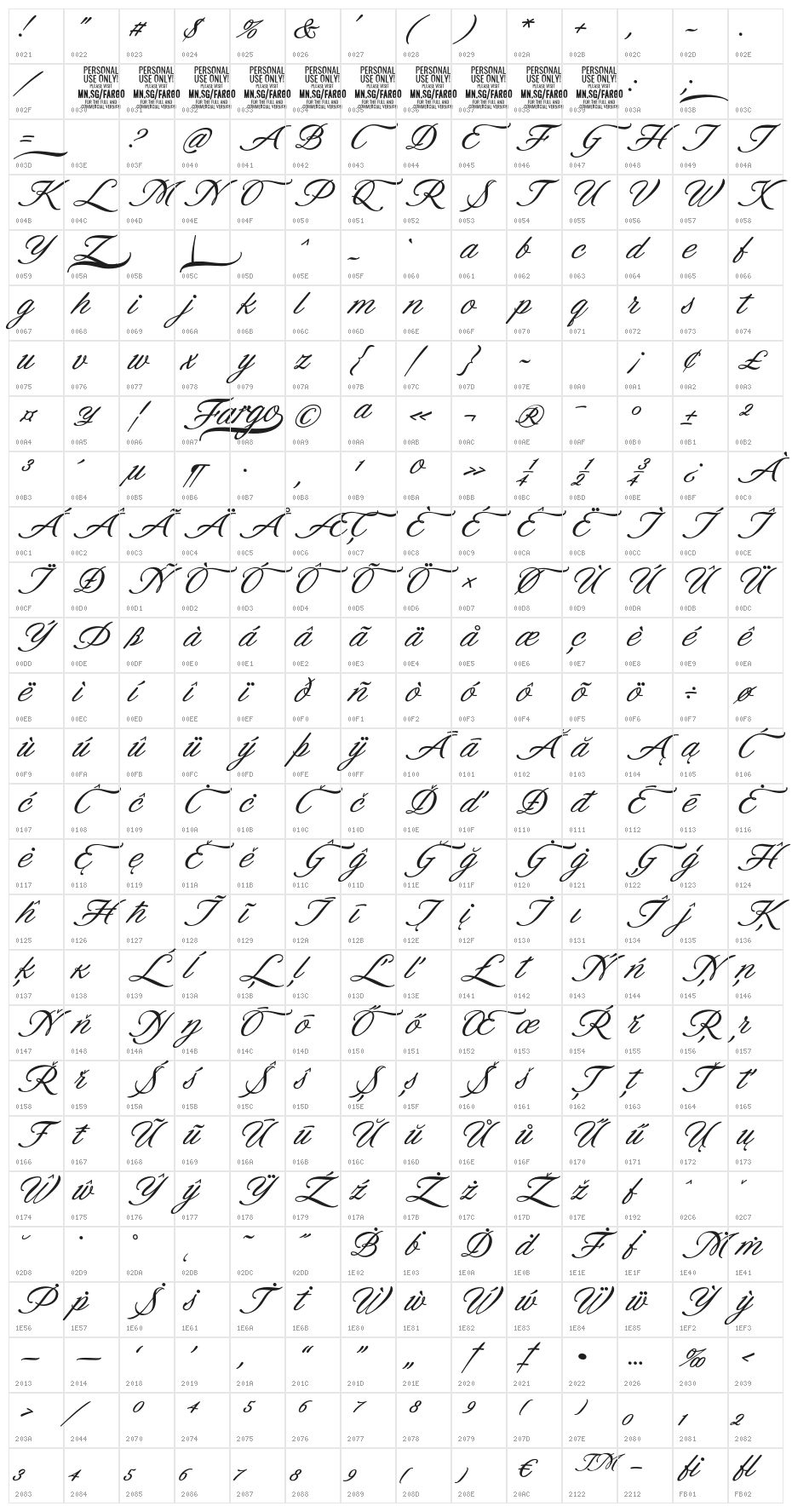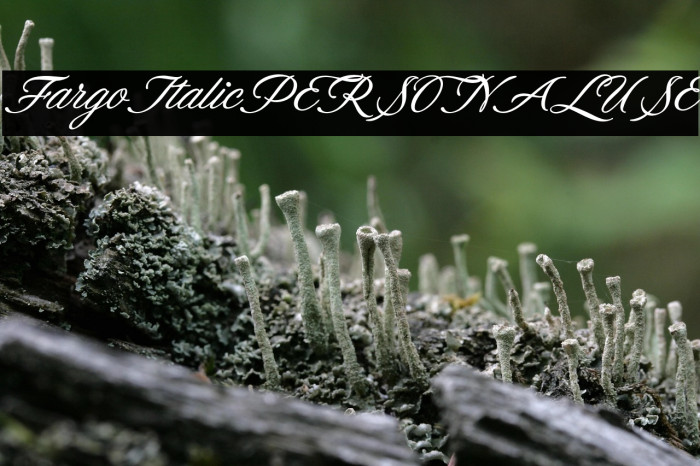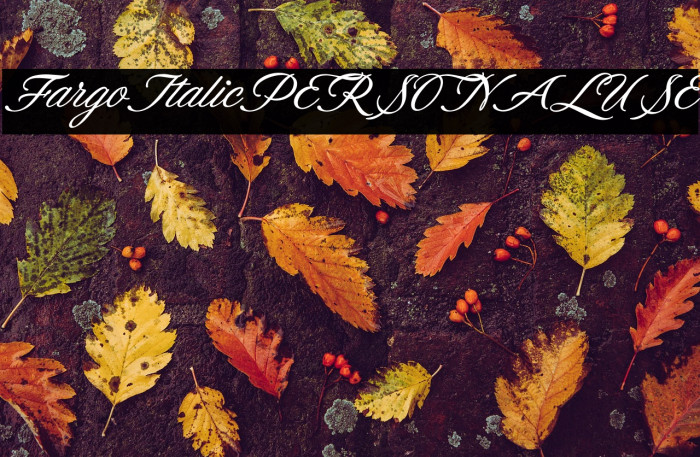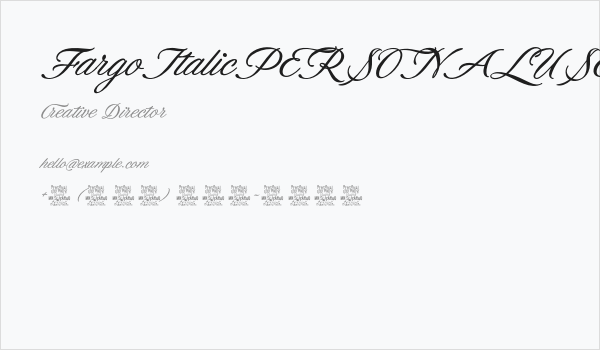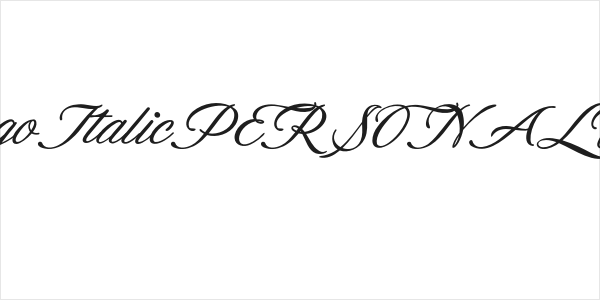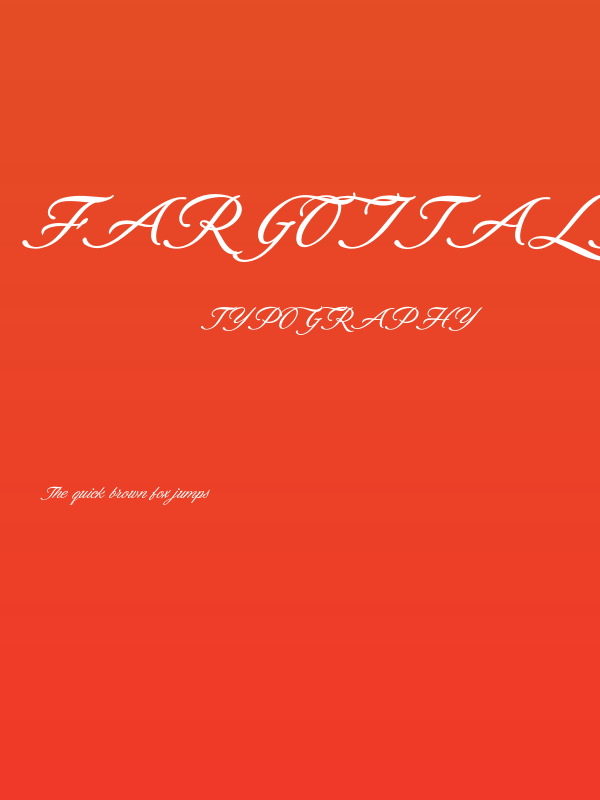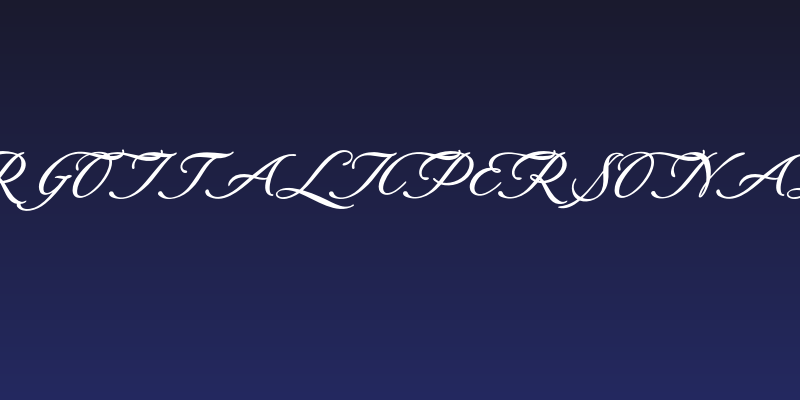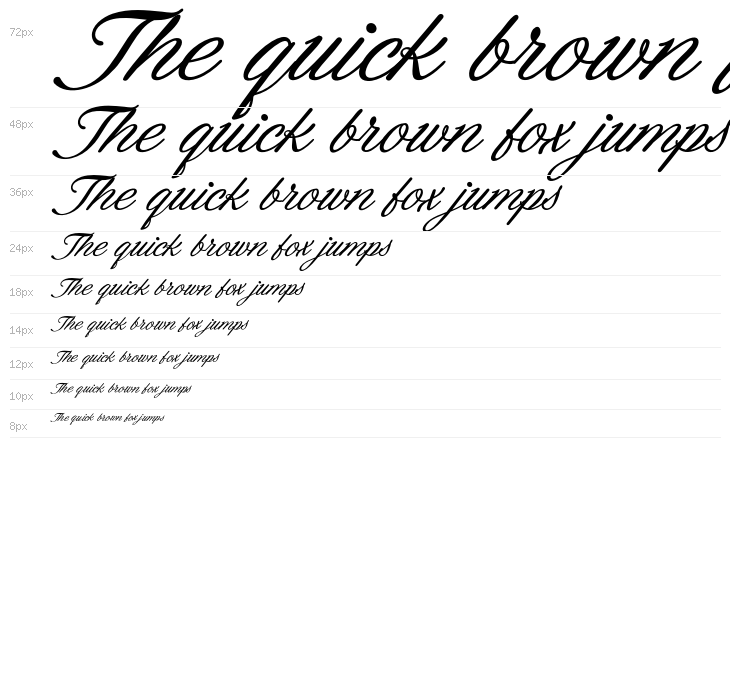
FargoItalicPERSONALUSE Font
FargoItalicPERSONALUSE Description
This elegant script font features a flowing, cursive style with a sophisticated flair. The uppercase letters are ornate and stylish, with sweeping curves and delicate lines that convey a sense of grace and fluidity. The lowercase letters maintain a consistent slant, enhancing the font's italic nature, and are designed with smooth, connected strokes that create a seamless appearance. The numerals and special characters are crafted with the same attention to detail, ensuring a cohesive look across all glyphs. This font exudes a classic charm, making it suitable for projects that require a touch of elegance and refinement.
Overall StyleClassic
Use CaseLogos, Invitations, Decorative text
Proposed ProjectsIdeal for wedding invitations, elegant branding, personal stationery, and decorative headlines.